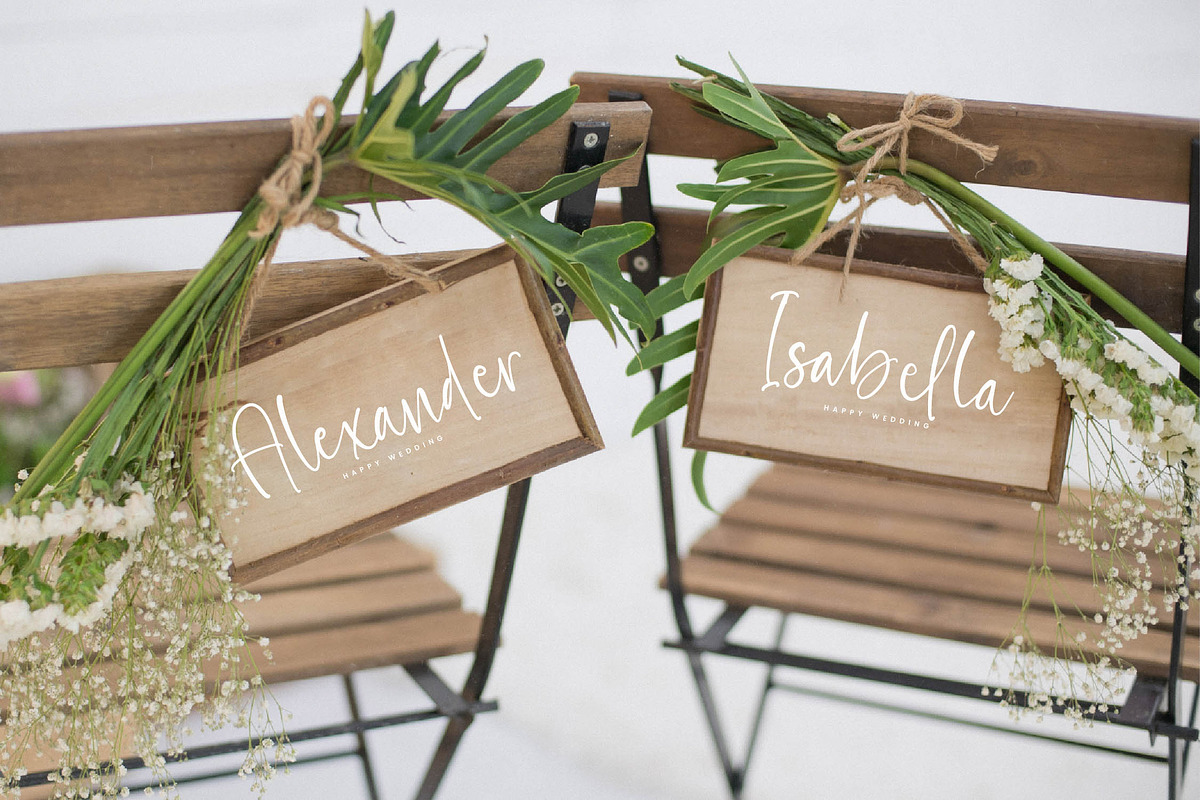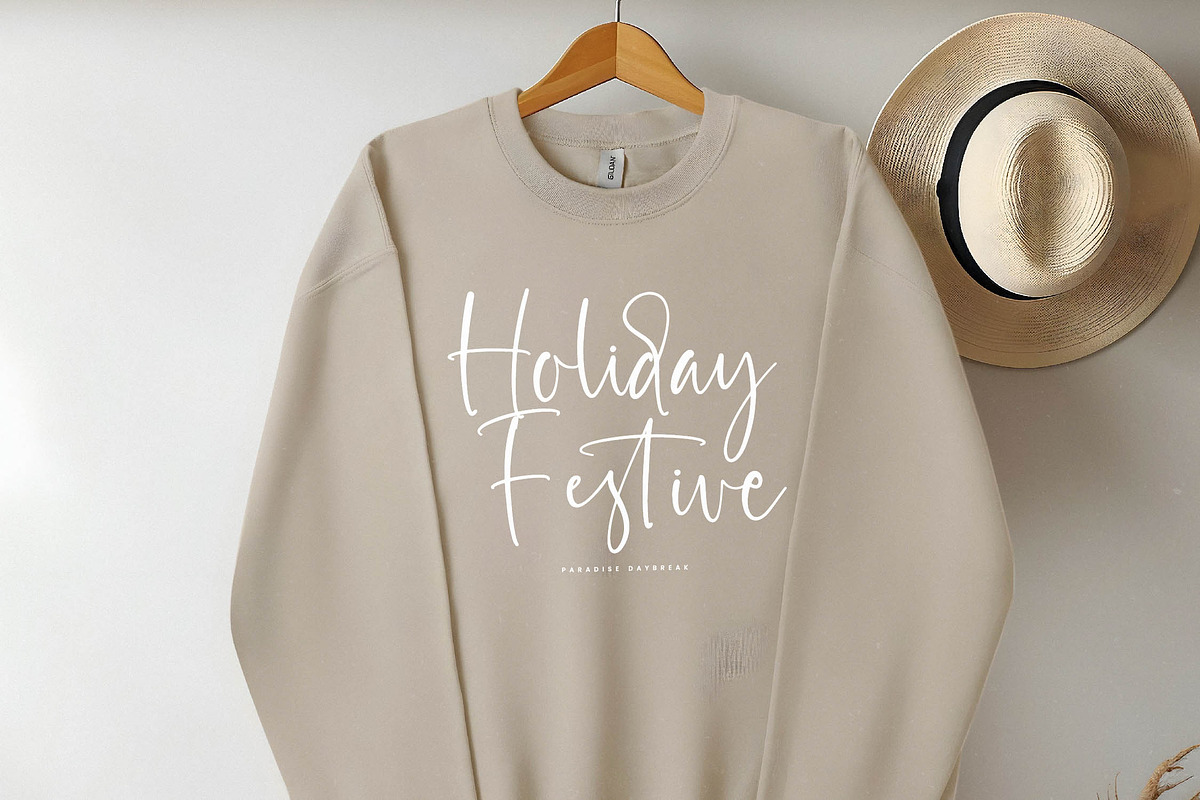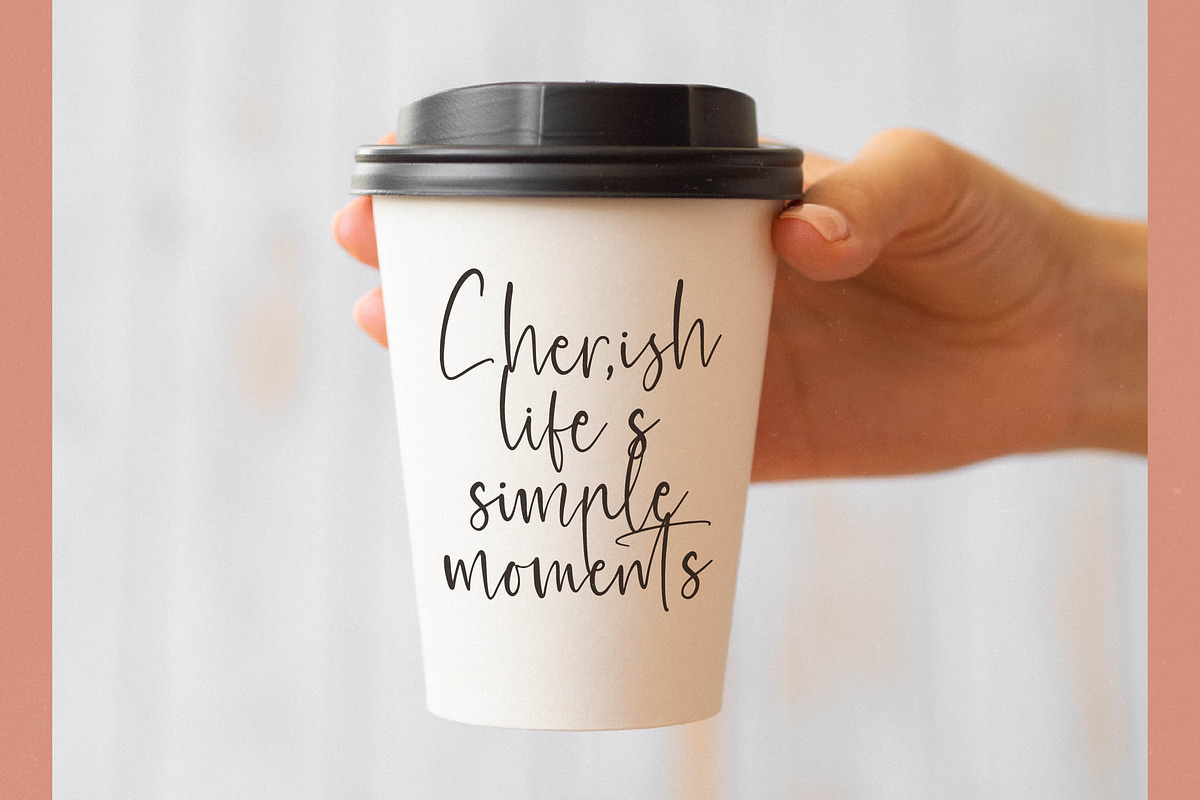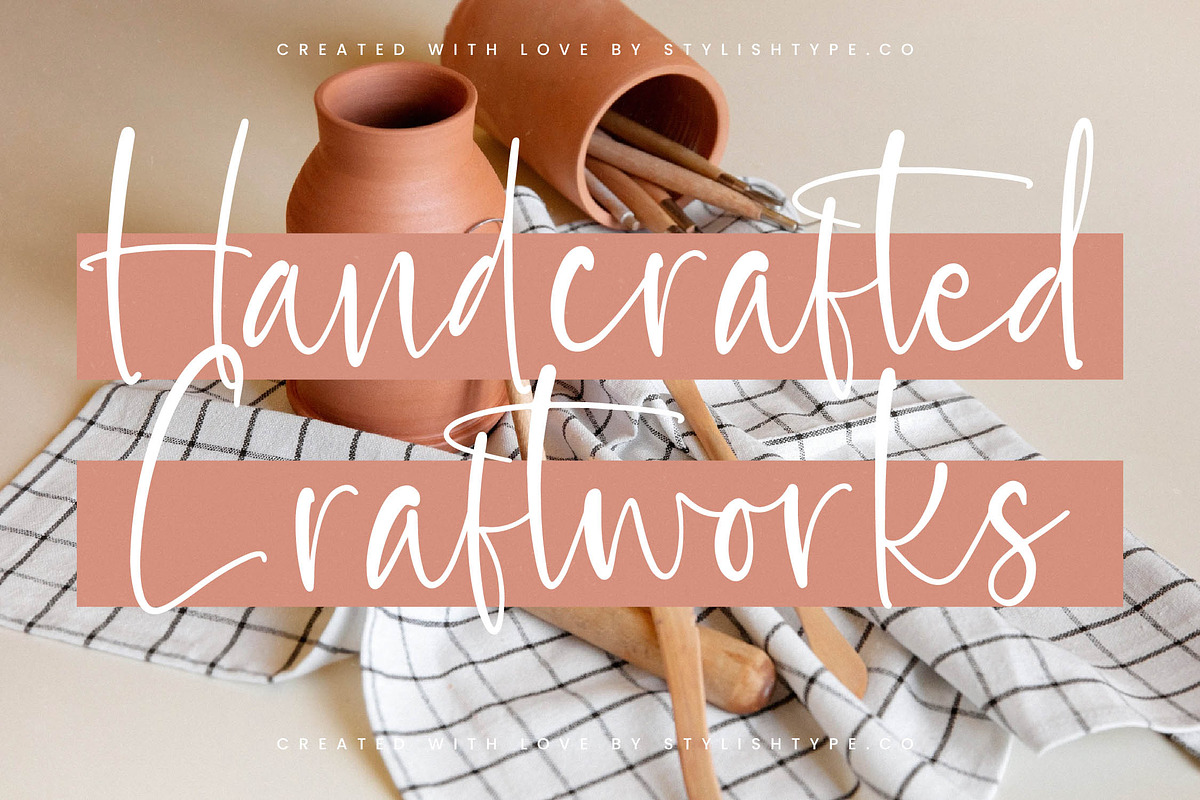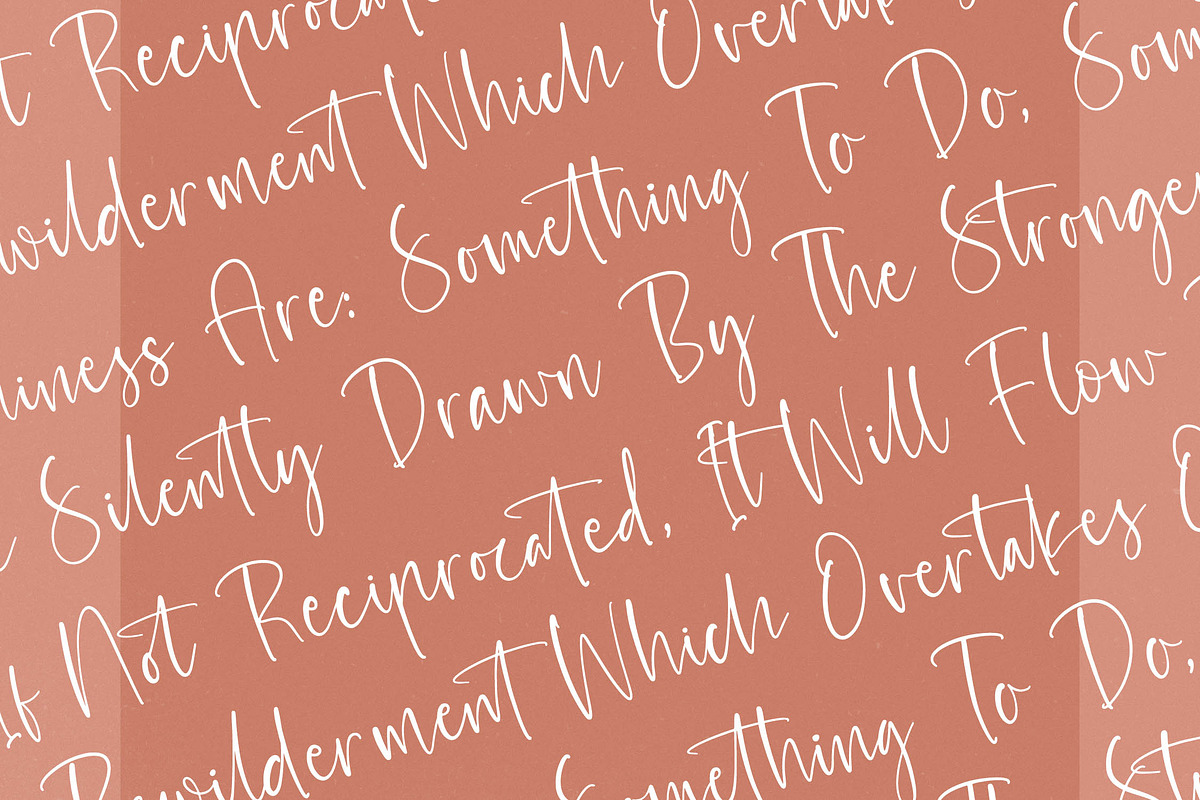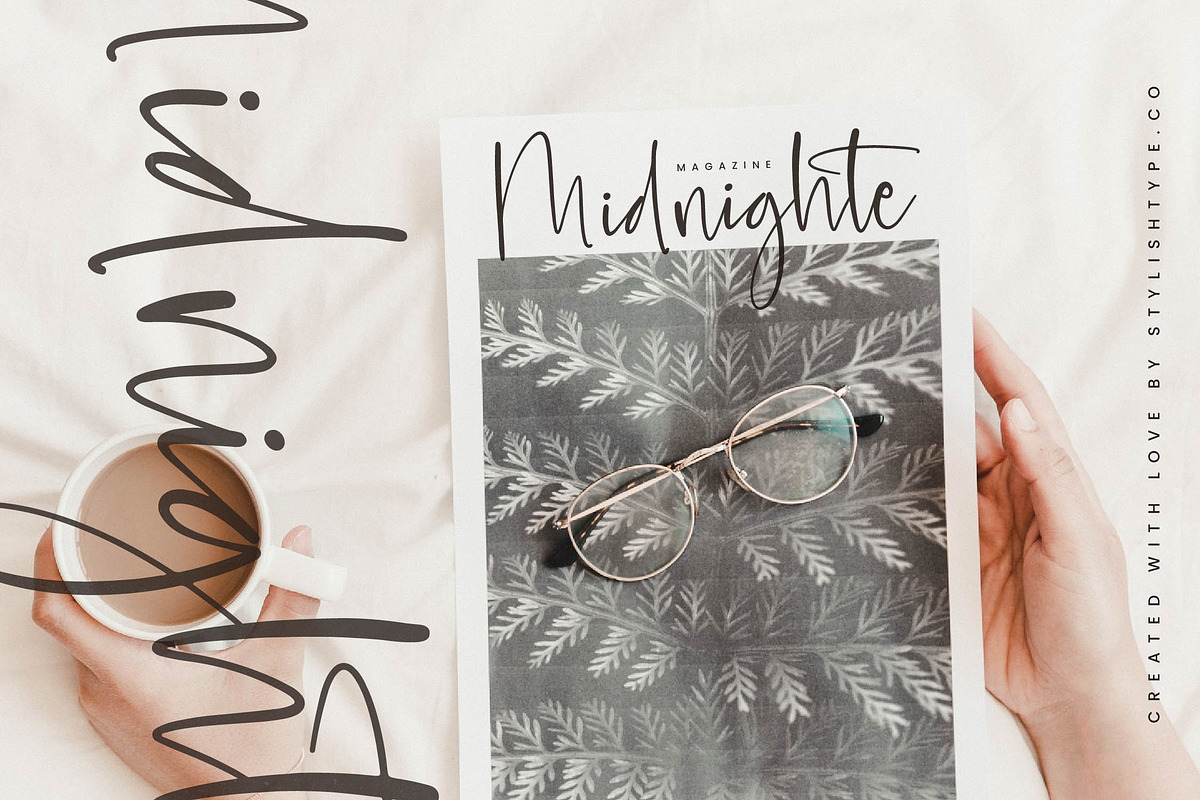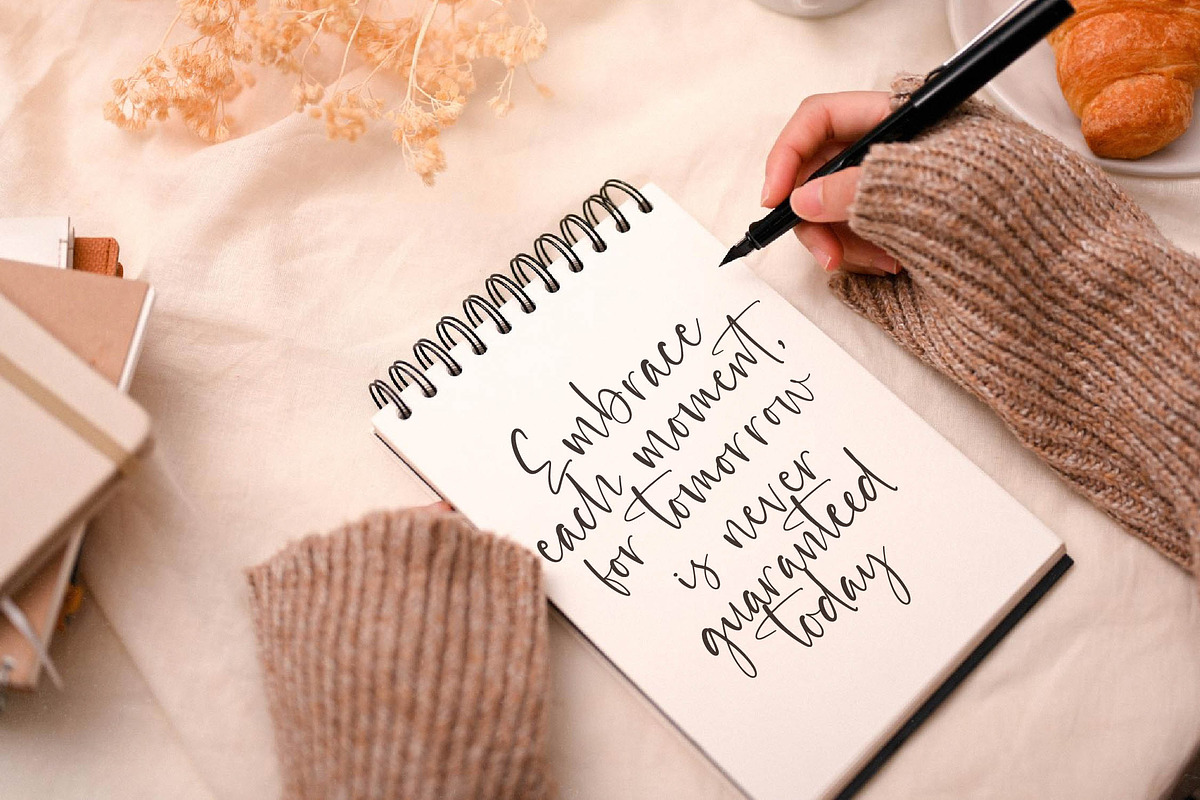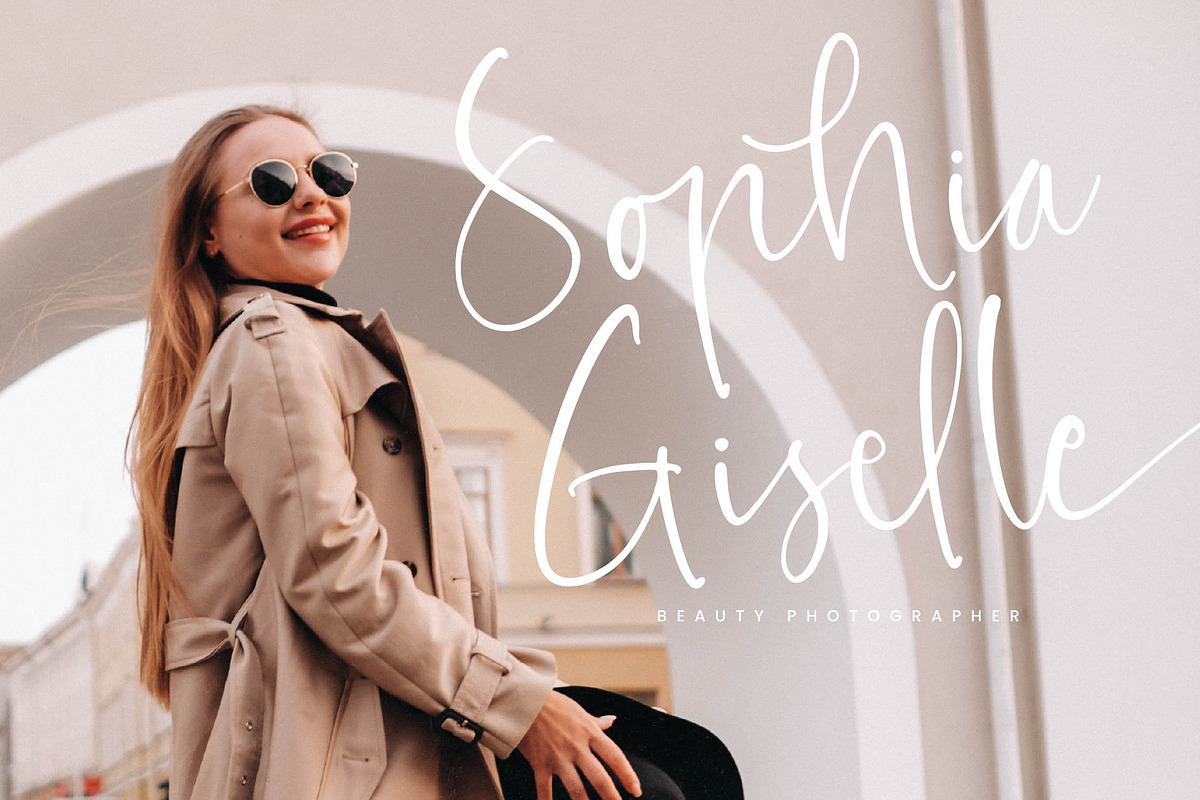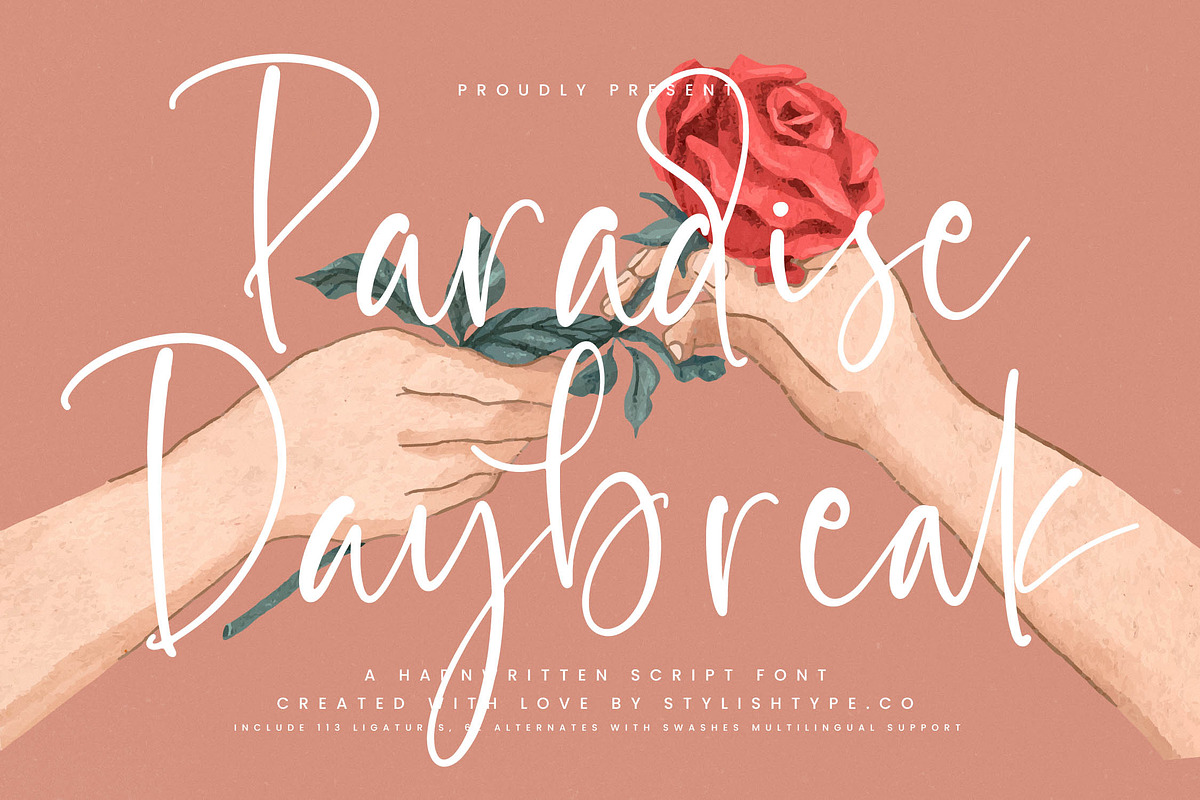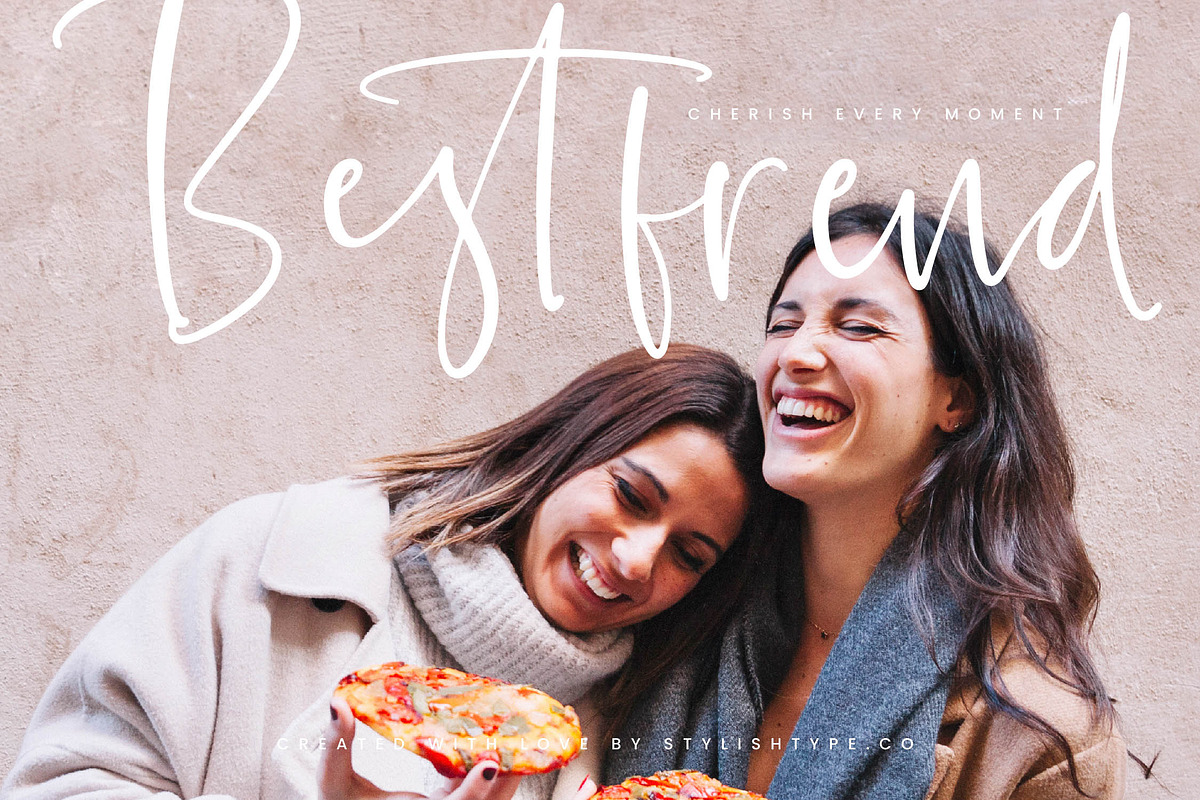
Paradise Daybreak Handwritten Script
Paradise Daybreak - Handwritten Script Font , Discover the romantic allure of Paradise Daybreak, a handwritten script that transforms every project into a visual love letter with its fluid and expressive character. This typeface is meticulously crafted to capture the essence of fleeting moments with natural flow and effortless grace.
Inspired by the soft morning light and the intimate beauty of nature, this font carries an ethereal atmosphere that resonates with authenticity and charm. Its rhythmic connections mimic the spontaneous beauty of true human handwriting, perfect for storytelling.
Bringing a significant branding impact to any layout, this script offers the refined elegance of luxury typography and the clear presence of an editorial font, standing proudly alongside any modern serif display or high-contrast serif. It bridges the gap between casual expression and high-end aesthetics.
Aligning with the current modern serif trend, this typeface provides a unique alternative to traditional editorial display fonts, championing the power of character-driven typography in a digital age. It meets the demand for designs that feel both personal and professional.
This font is the perfect choice for high-end logo design, cohesive branding identities, and stylish editorial spreads, while remaining a favorite for packaging, wedding invitation suites, and luxury fashion campaigns. It adapts seamlessly across various creative mediums.
Enhance your designs with over 113 ligatures, gorgeous alternates, and elegant swashes, all while benefiting from comprehensive multilingual support and essential international characters. This technical depth ensures your typography remains unique and versatile..
- Ligature 113 Alternates 62 & Swashes